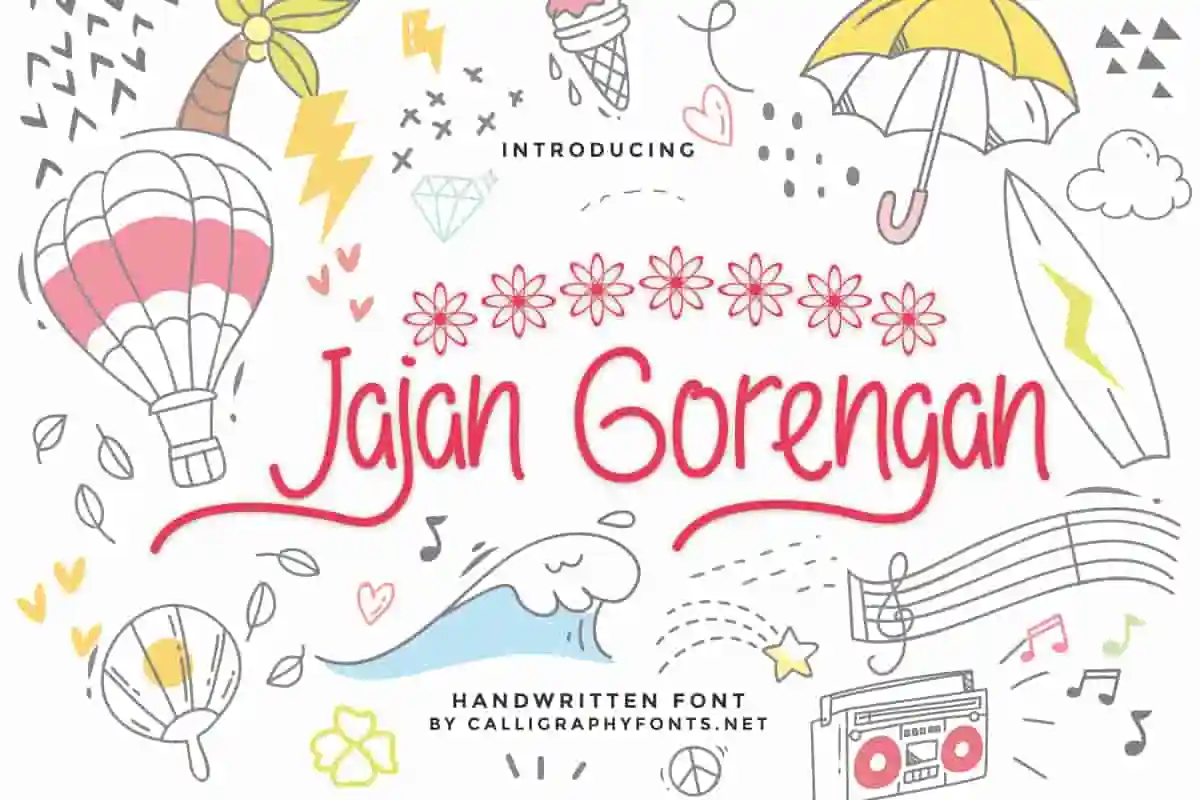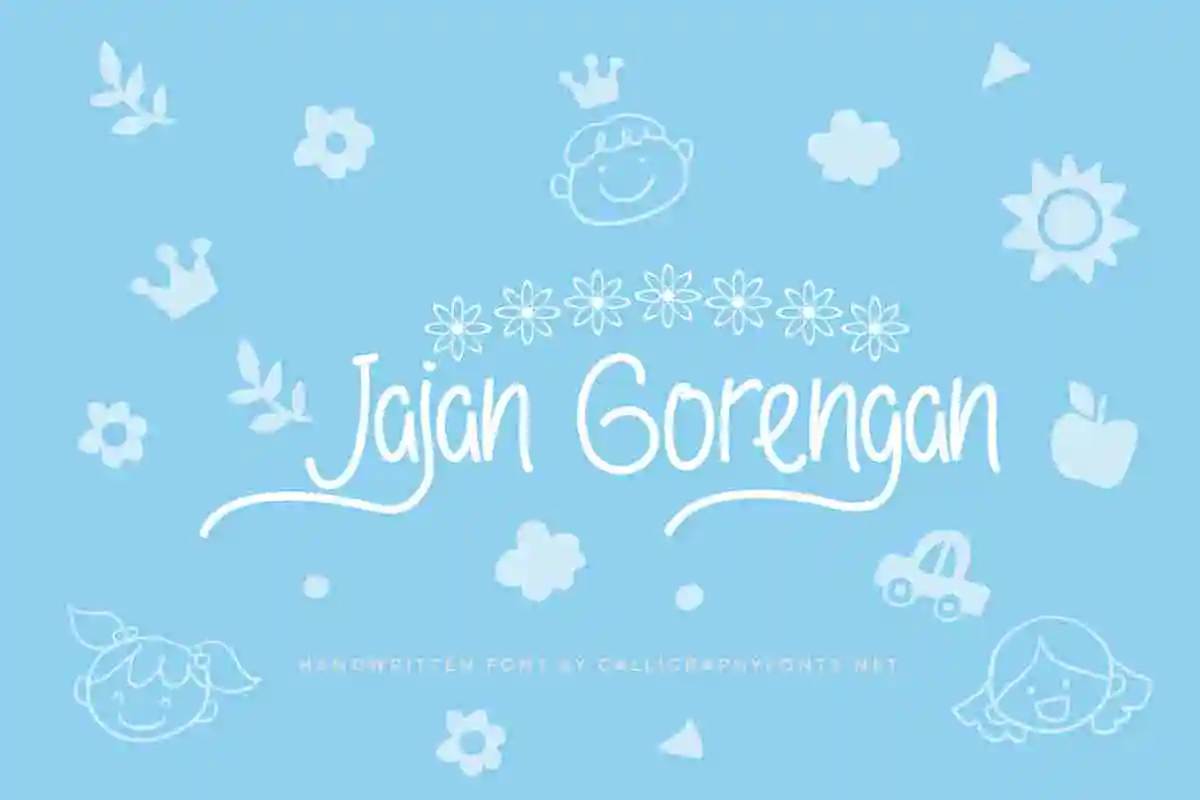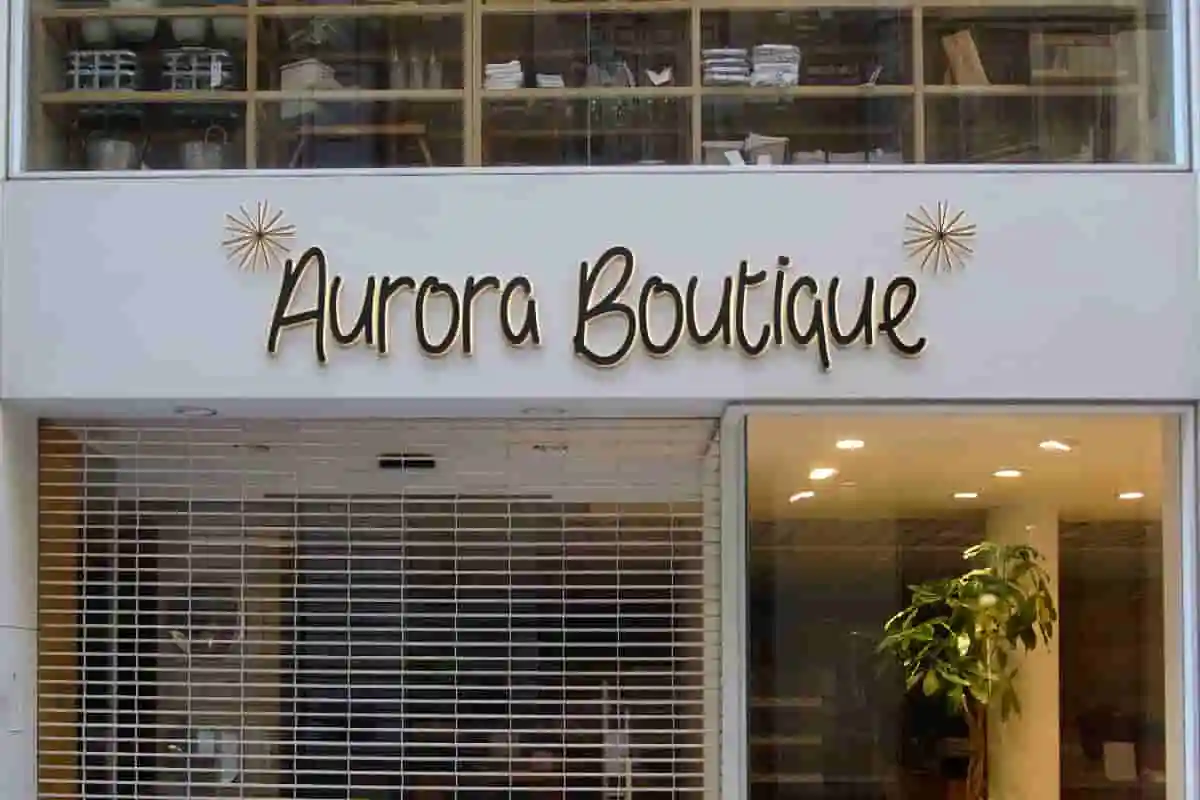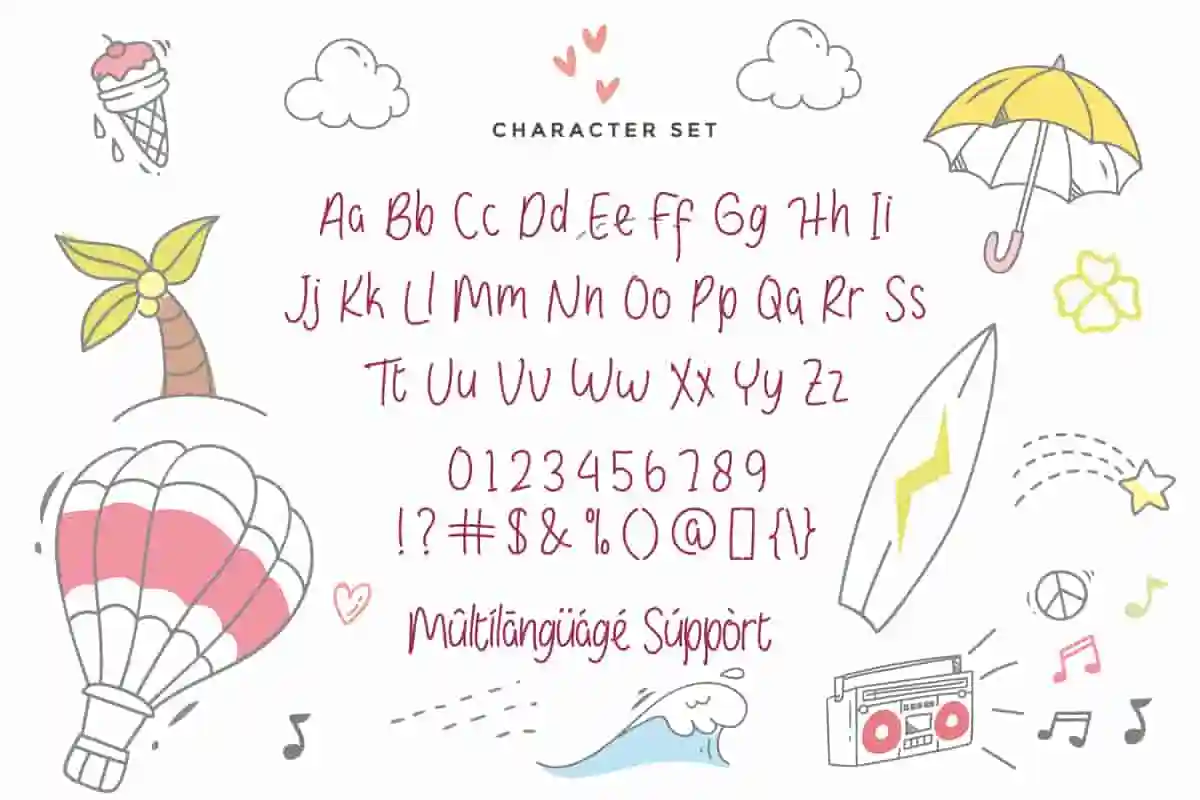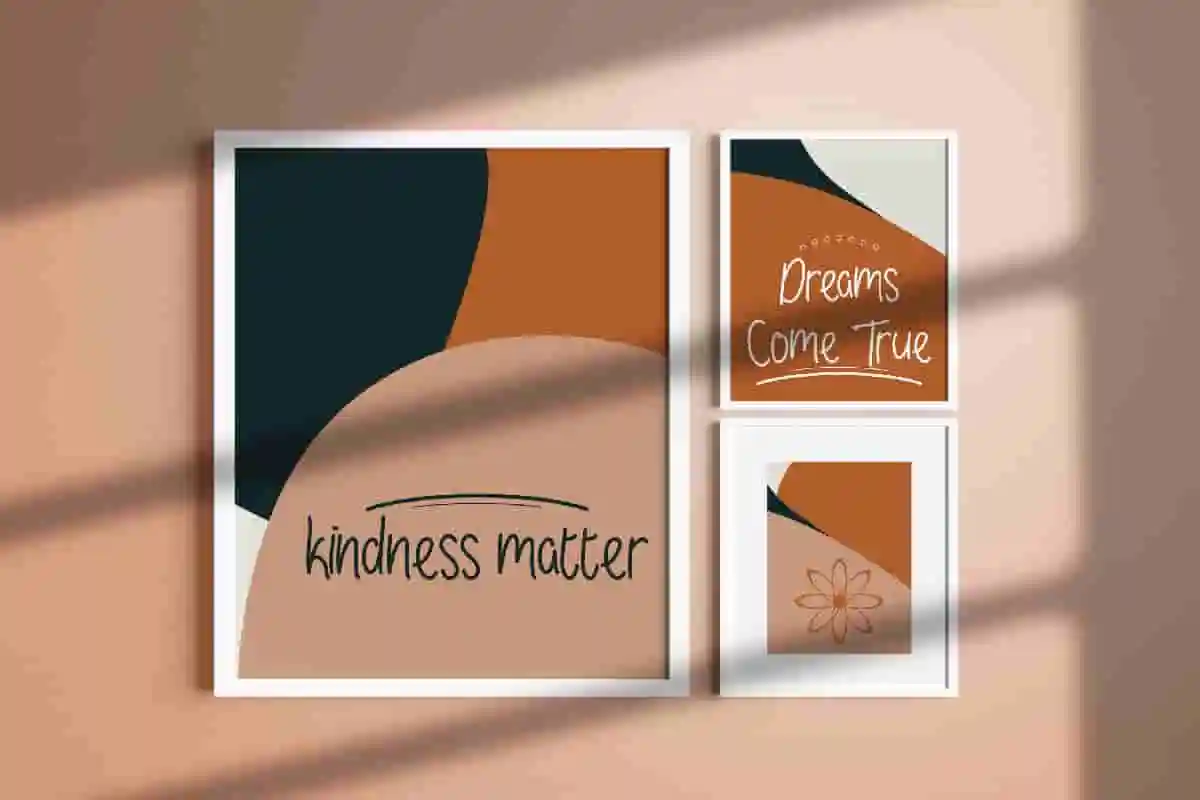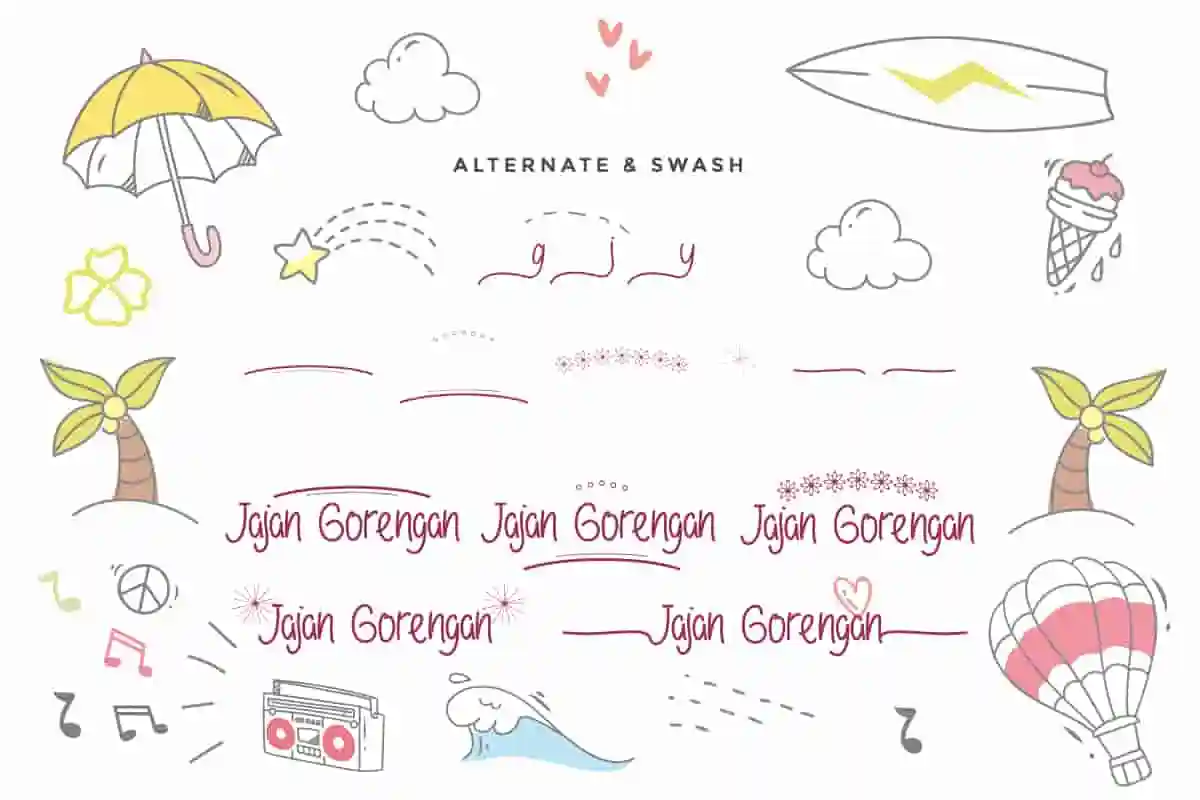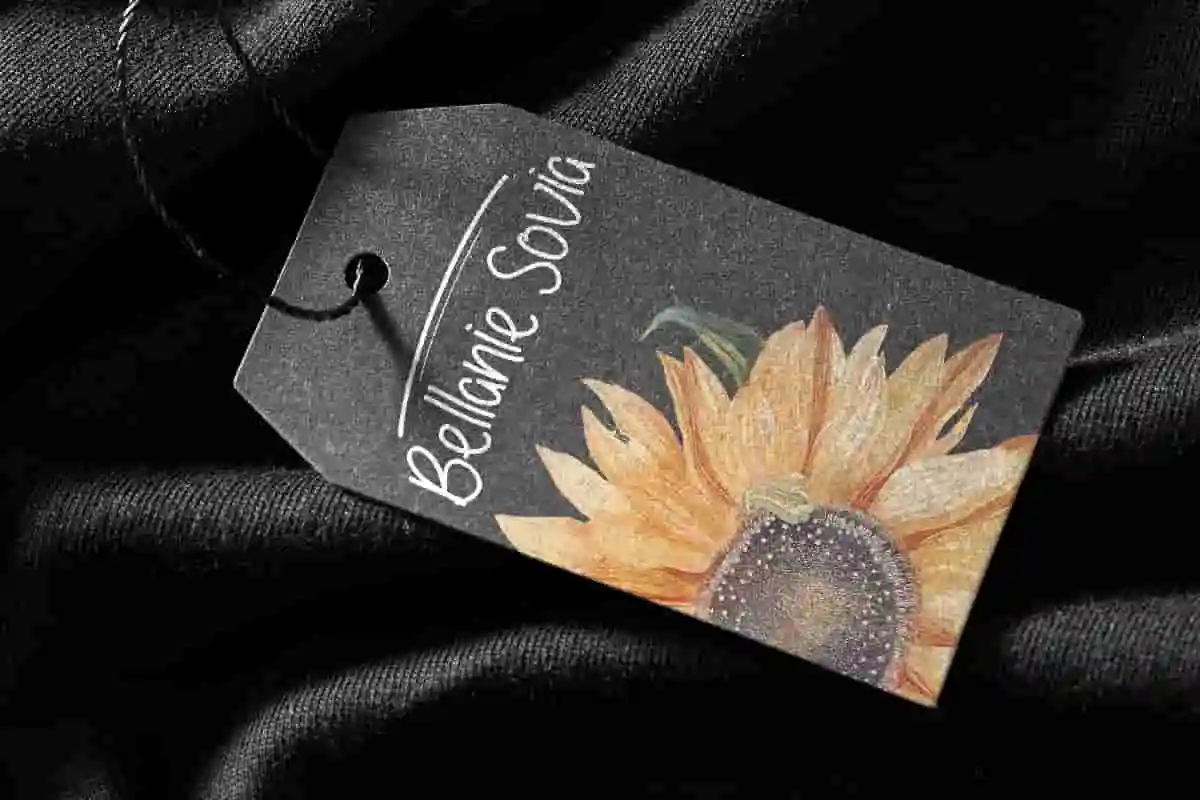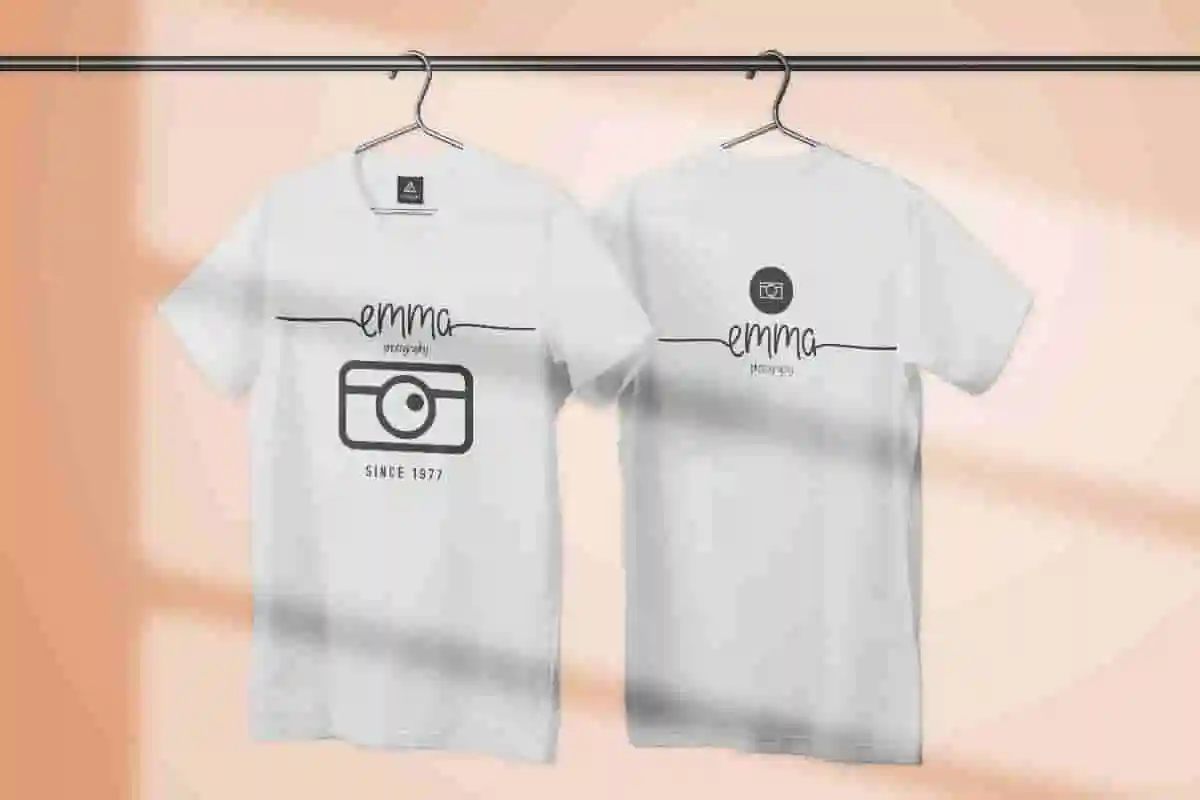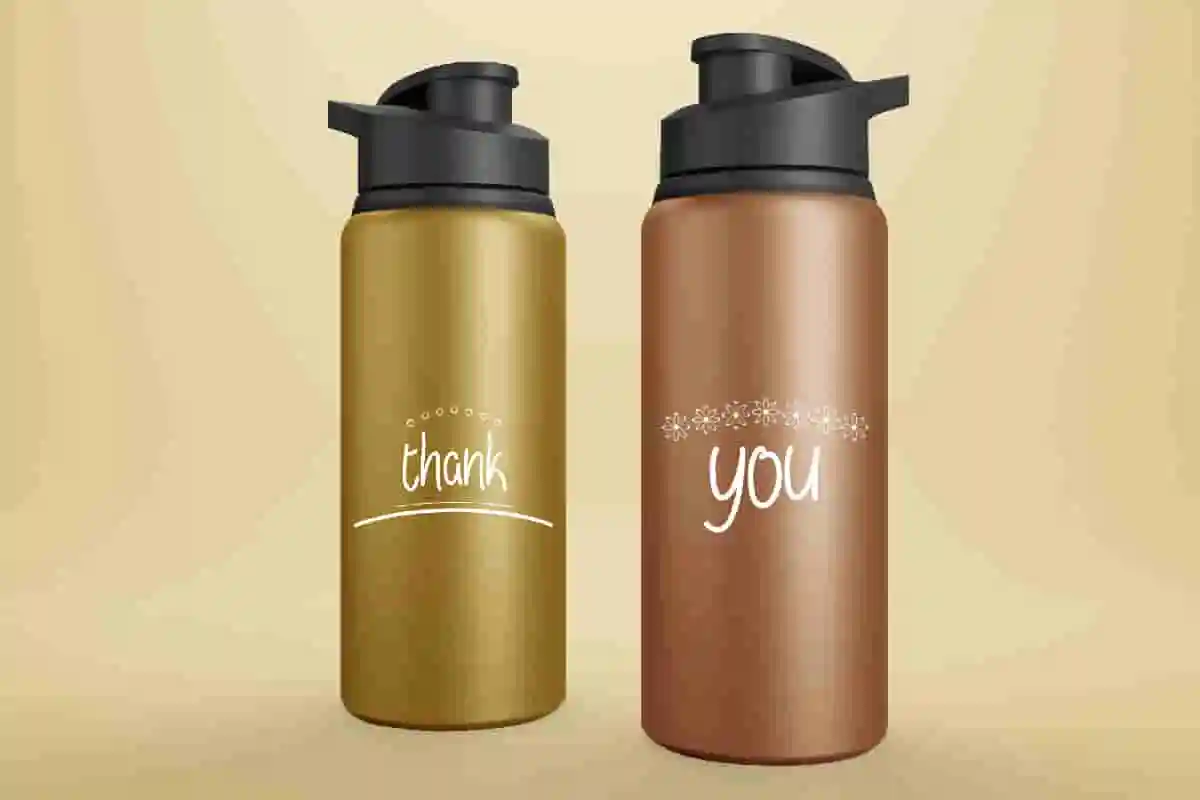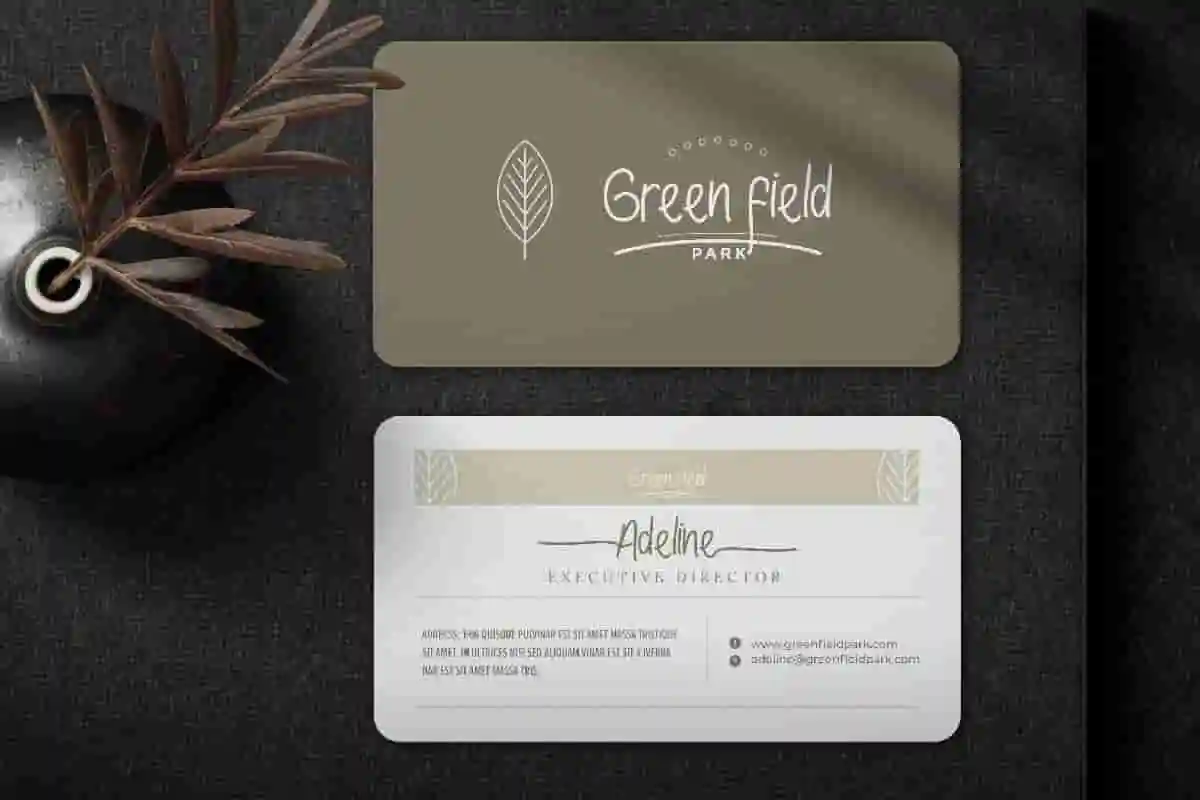
Jajan Gorengan Handwriting Font
Jajan Gorengan Handwriting Font is fun handwriting font by CalligraphyFonts.net. It has great characters that will be awesome for branding, poster, invitation, flyer etc
Jajan Gorengan Font is a unique Handwriting font, it will be awesome for brands, packaging, invitation, games. etc. Jajan Gorengan Font inspired from kids related theme so it will work well for books, packaging, toys, homewares etc
Say hello to Jajan Gorengan Handwriting Font — a fun and quirky handwritten typeface inspired by the casual charm of street food culture and everyday joy. This font is perfect for designers looking to add a cheerful, handmade touch to their creative projects.
This font isn’t just for food-related projects; it’s perfect for any design that needs a splash of personality and friendliness. Whether you’re designing for small businesses, product labels, or just for fun, Jajan Gorengan is the font that makes your work pop.